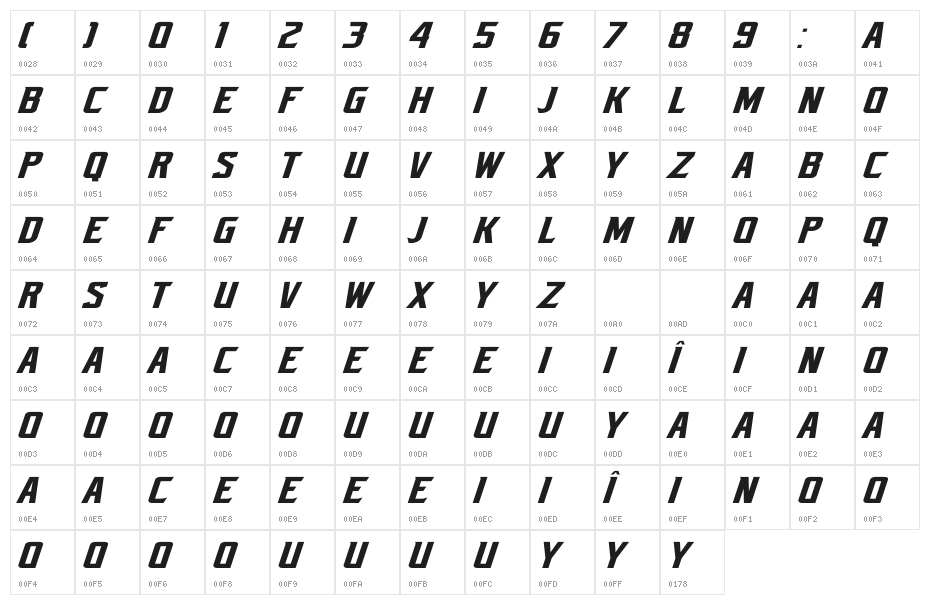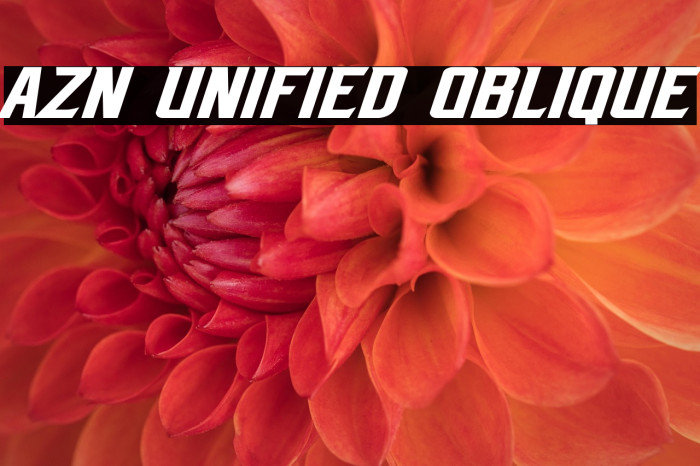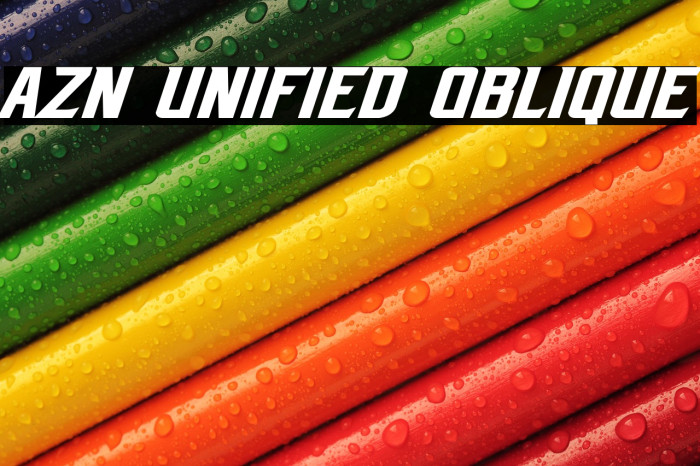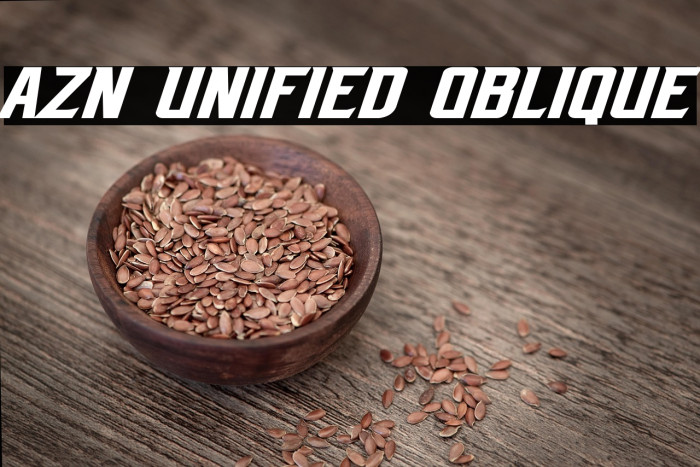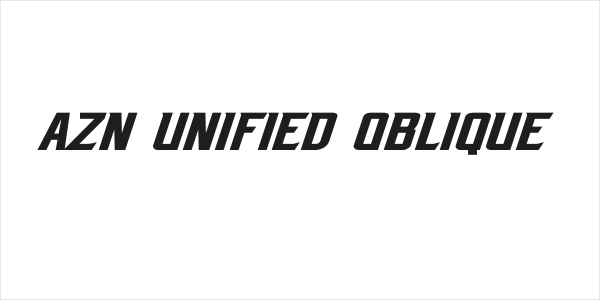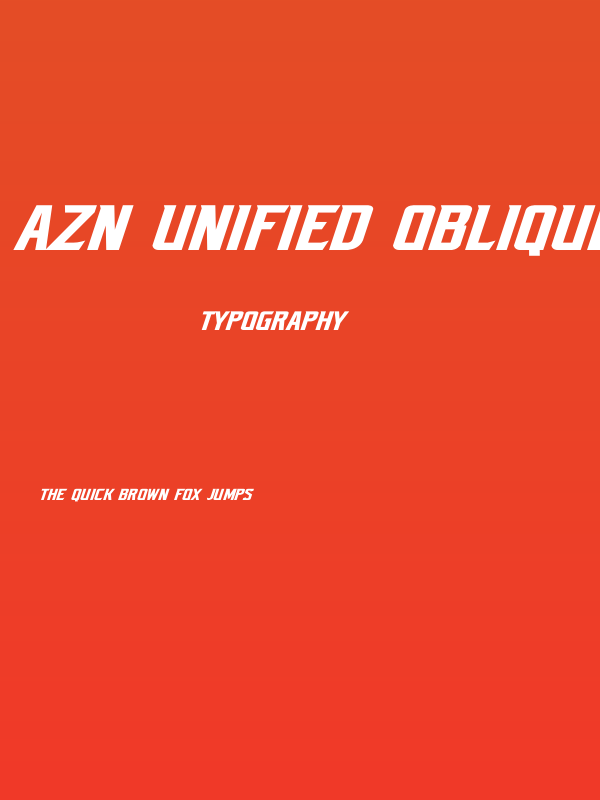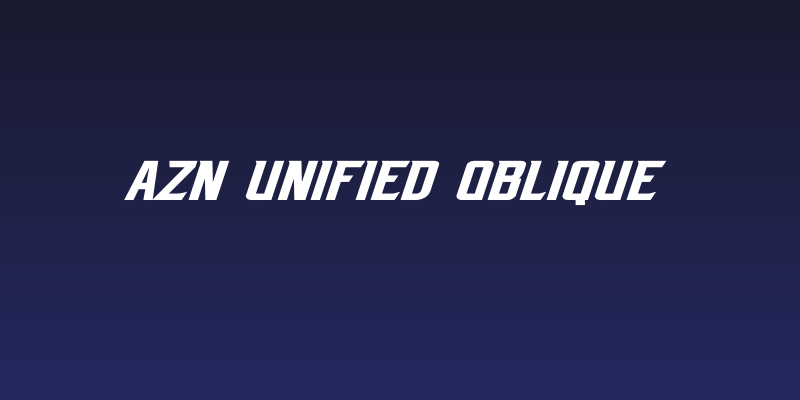
AZN Unified Oblique Font
This font features a bold and dynamic design with an oblique slant, giving it a sense of motion and energy. The characters are sharply defined with angular cuts, creating a modern and futuristic appearance. The uppercase letters are particularly striking, with a consistent slant that enhances the font's sleek and aerodynamic look. The numerals and special characters maintain this style, ensuring uniformity across all glyphs. The font's strong presence makes it ideal for attention-grabbing headlines and impactful designs.
Proposed ProjectsIdeal for sports branding, automotive designs, tech-related projects, and dynamic advertising campaigns.